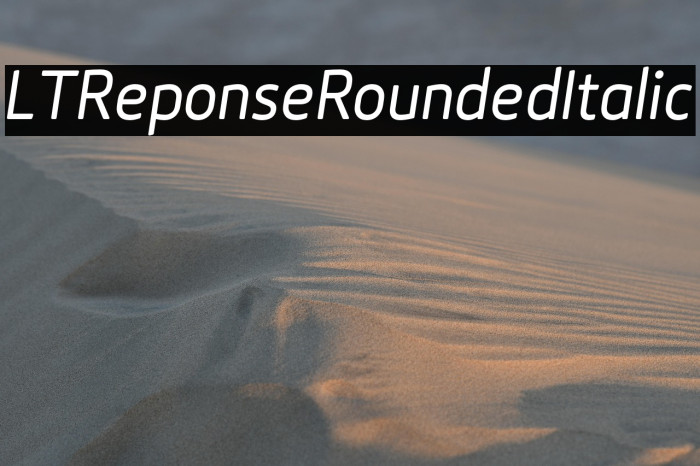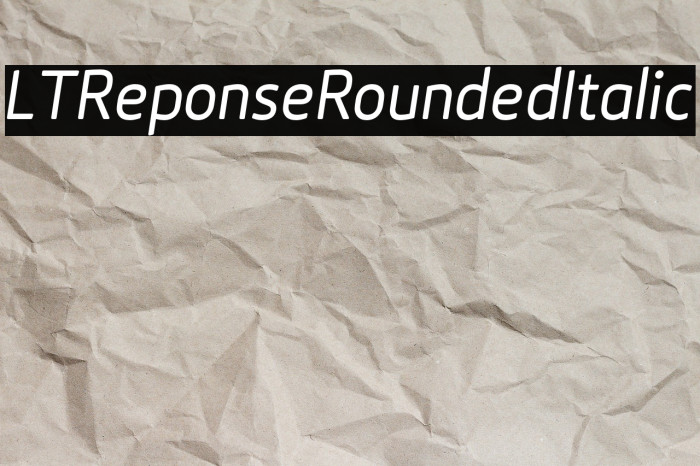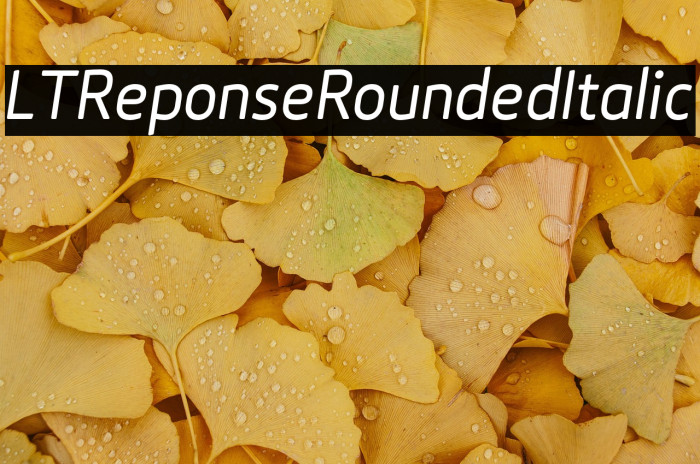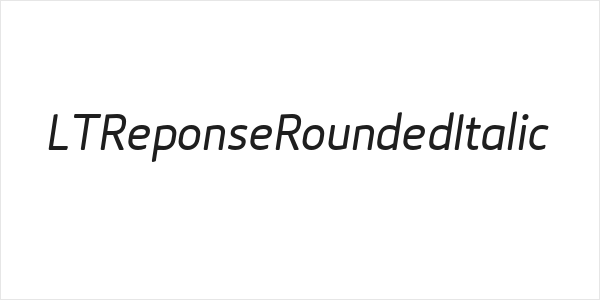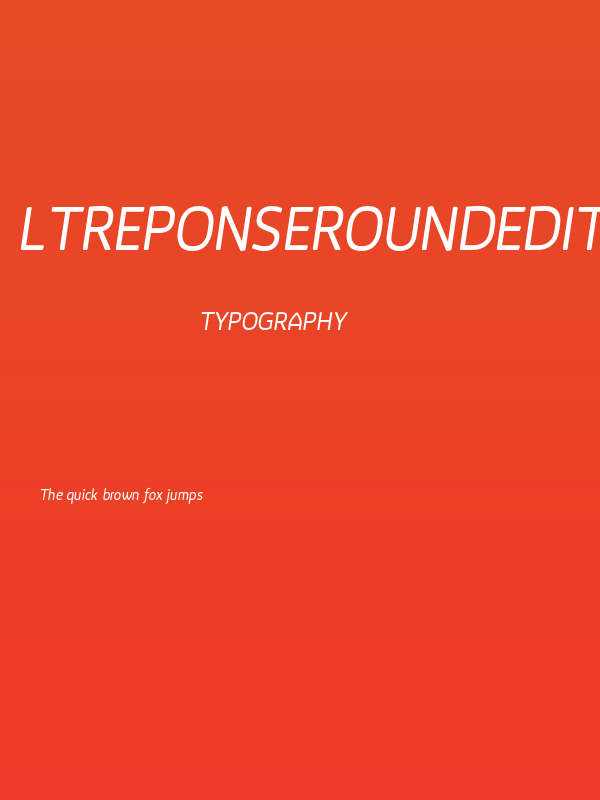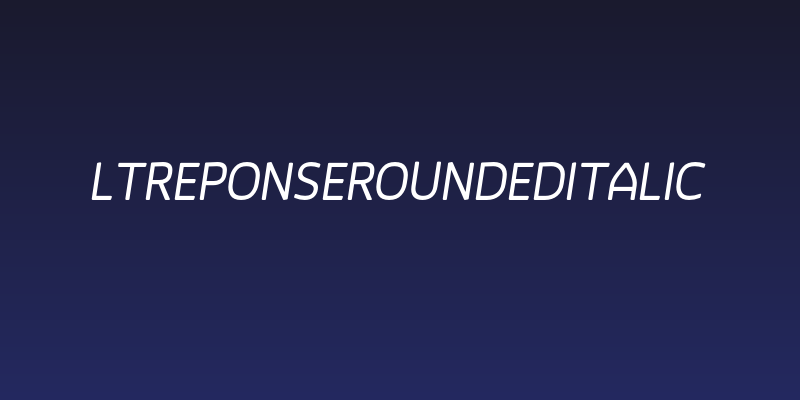
LTReponseRoundedItalic Font
LTReponseRoundedItalic Description
This font features a modern, rounded style with a slight italic slant, giving it a dynamic and fluid appearance. The characters are evenly spaced, providing a clean and organized look. The rounded edges soften the overall aesthetic, making it approachable and friendly. The font maintains a consistent stroke width, offering a uniform and balanced appearance across all characters. Its legibility is high, making it suitable for various applications. The numerals and special characters are designed to match the overall style, ensuring a cohesive look throughout.
| Proposed Projects | Ideal for branding, advertising, digital interfaces, and modern print materials. |